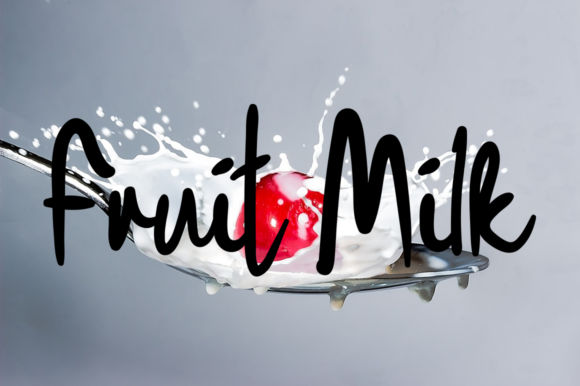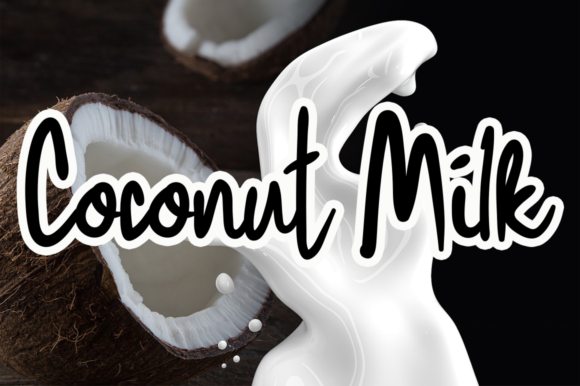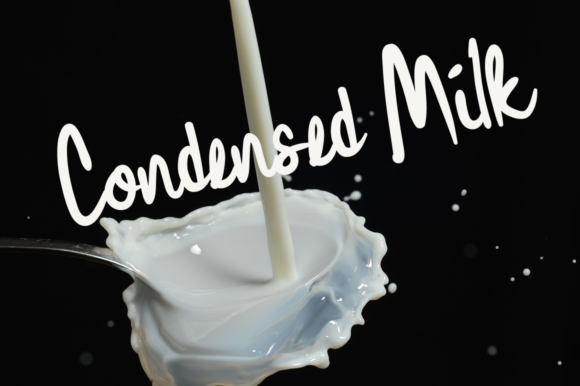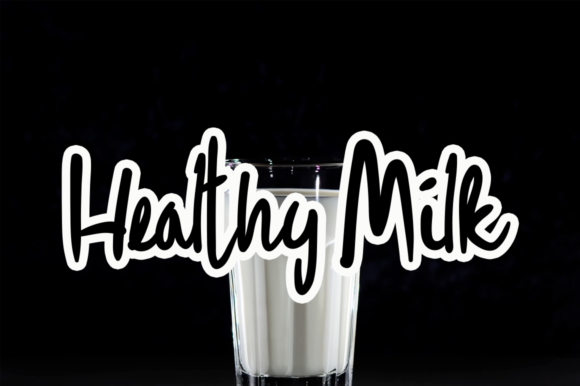
Sweet Buttermilk Font: A Dainty and Romantic Handwritten Font
Are you looking for a font that can add a touch of elegance and whimsy to your design projects? Look no further than the Sweet Buttermilk font! This beautiful, cursive handwritten font is perfect for designers and crafters who want to create stunning and romantic designs. In this article, we’ll take a closer look at the Sweet Buttermilk font, its features, and how you can use it to elevate your designs.
What is Sweet Buttermilk Font?
Sweet Buttermilk is a dainty, thin, and cursive handwritten font that is designed to add a touch of sweetness and romance to your designs. This gentle font features flowing lines and delicate curves that make it perfect for a variety of design projects, from wedding invitations and stationery to branding and packaging.
Features of Sweet Buttermilk Font
The Sweet Buttermilk font has several features that make it a great choice for designers and crafters. Some of its key features include:
• Dainty and thin lines: The Sweet Buttermilk font features delicate and thin lines that give it a light and airy feel.
• Cursive handwritten style: The font has a beautiful, cursive handwritten style that adds a touch of elegance and sophistication to your designs.
• Romantic and whimsical: The Sweet Buttermilk font has a romantic and whimsical feel that makes it perfect for designs that require a touch of personality and charm.
• Highly versatile: This font can be used for a variety of design projects, from print to digital, and can be paired with a range of other fonts and design elements.
How to Use Sweet Buttermilk Font
The Sweet Buttermilk font can be used for a wide range of design projects, including:
• Wedding invitations and stationery: The Sweet Buttermilk font is perfect for creating beautiful and romantic wedding invitations, stationery, and other wedding-related designs.
• Branding and packaging: This font can be used to create stunning brand identities and packaging designs that require a touch of elegance and sophistication.
• Digital designs: The Sweet Buttermilk font can be used for digital designs, such as social media graphics, blog headers, and email newsletters.
• Crafting and DIY projects: This font is also perfect for crafters and DIY enthusiasts who want to create beautiful and personalized designs for their projects.
Tips for Using Sweet Buttermilk Font
Here are some tips for using the Sweet Buttermilk font:
• Pair it with bold fonts: The Sweet Buttermilk font looks great when paired with bold fonts that provide a nice contrast to its delicate lines.
• Use it for headings and titles: This font is perfect for headings and titles, where its elegant and cursive style can really shine.
• Experiment with colors: The Sweet Buttermilk font looks great in a range of colors, from soft pastels to rich jewel tones.
• Don’t be afraid to get creative: This font is highly versatile, so don’t be afraid to experiment and try new things!
The Sweet Buttermilk font is a beautiful and romantic handwritten font that is perfect for designers and crafters who want to add a touch of elegance and whimsy to their designs. With its delicate lines, cursive style, and highly versatile nature, this font is sure to become a favorite in your design toolkit. So why not give it a try and see how it can elevate your designs?